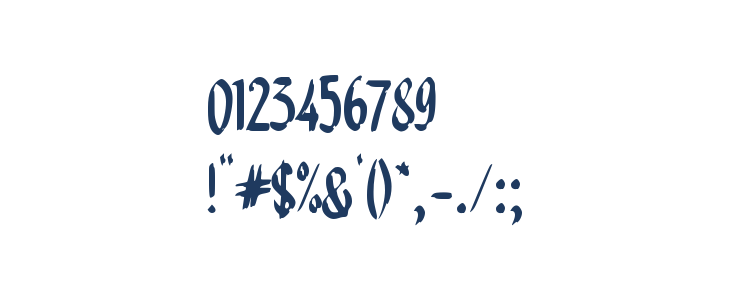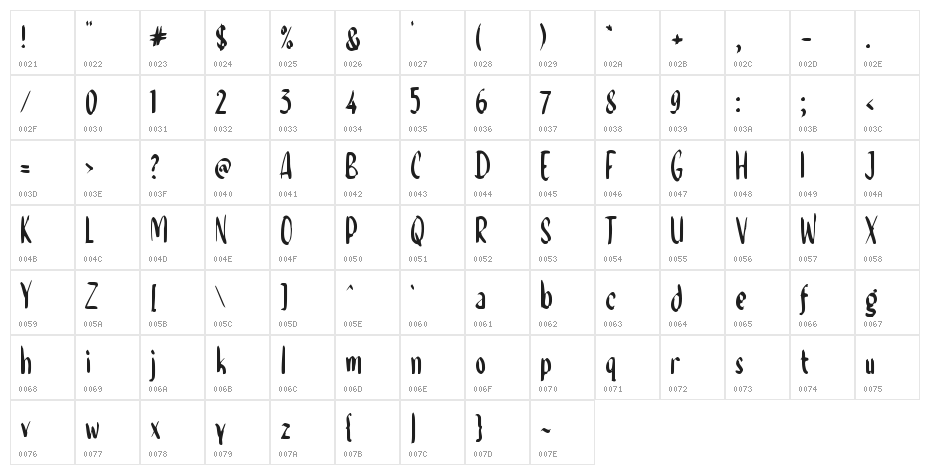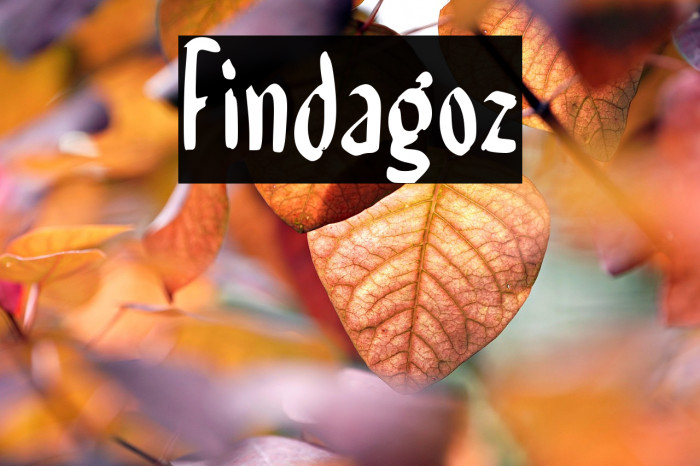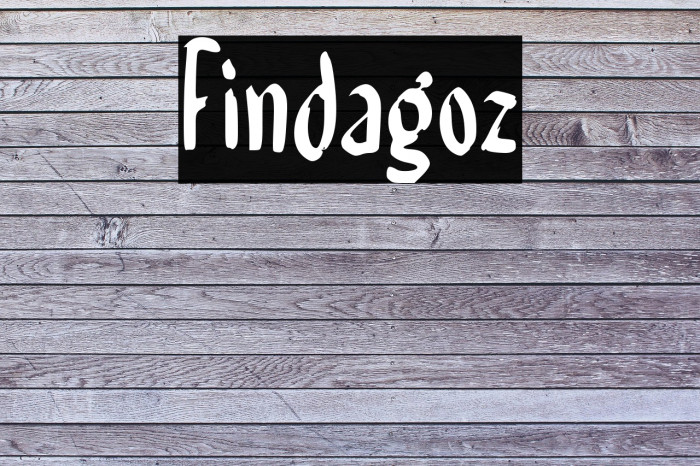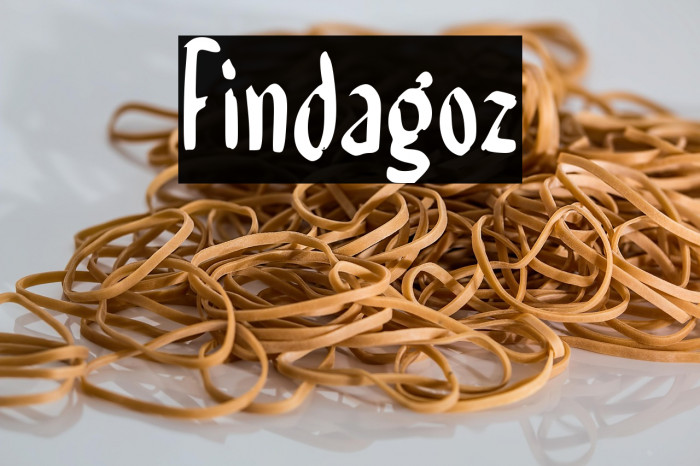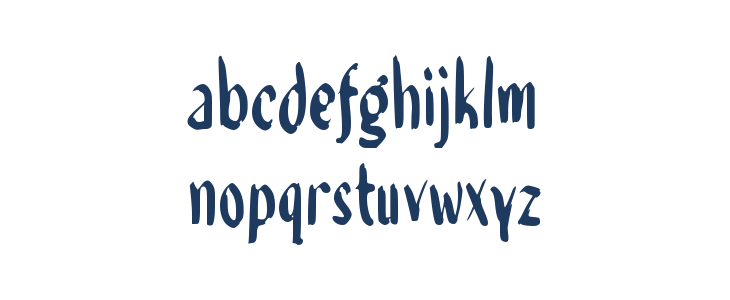
Findagoz Font
Findagoz Description
This font features a bold and expressive handwritten style, characterized by its dynamic and irregular strokes. The uppercase letters are tall and slightly narrow, with a playful and artistic flair. The lowercase letters maintain a consistent flow, complementing the uppercase with their rounded and slightly slanted forms. Numbers are bold and easily readable, while the special characters add a touch of whimsy with their unique shapes. The overall appearance is energetic and informal, making it suitable for creative and casual applications.